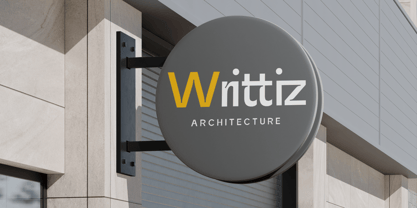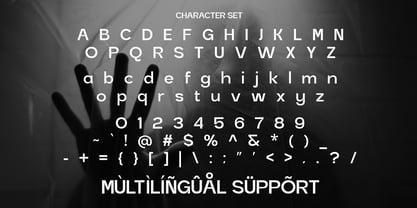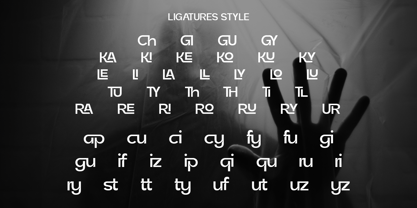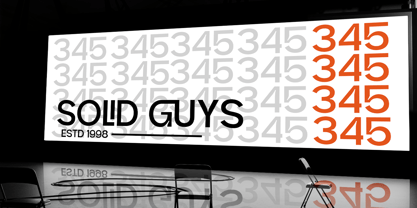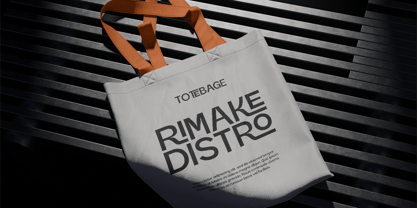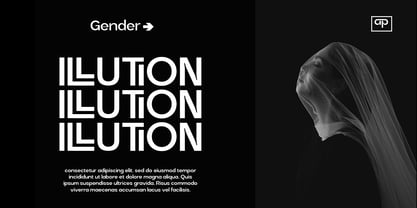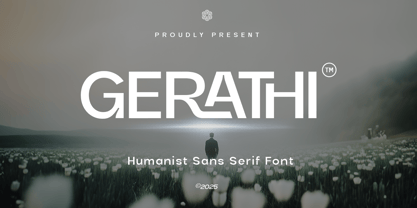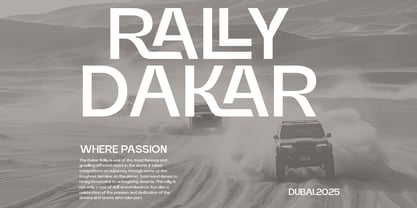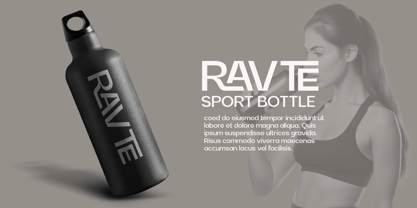
Gerathi
by RagamKata
The Gerathi Font Family was designed by Yogiswhara Dio Prakoso Riadi and published by RagamKata. Gerathi contains 2 styles and family package options.
Gerathi is a modern Humanist Sans Serif font that combines geometric precision with smooth humanist curves, creating a balance between professionalism and warmth. Perfect for branding, logos, headlines, posters, and editorial design, Gerathi delivers clean elegance and high readability. Its unique letterforms make it ideal for both digital and print projects, giving a timeless yet contemporary impression. Elevate your creative designs with Gerathi — the perfect blend of clarity, style, and modern minimalism. File Included : - Gerathi Regular - Gerathi Italic - Stylistic Ligatures - Multilingual Support Thanks, have a wonderful day Ragamkata Studio